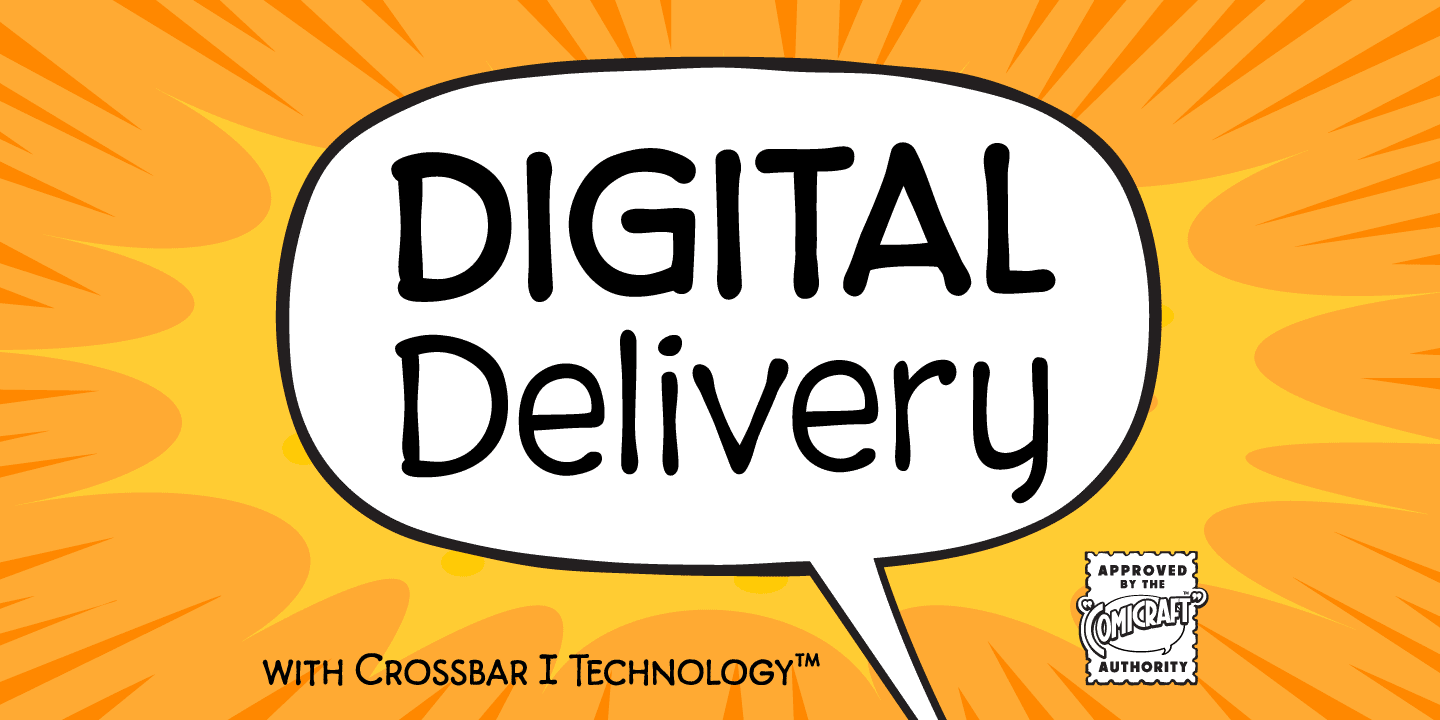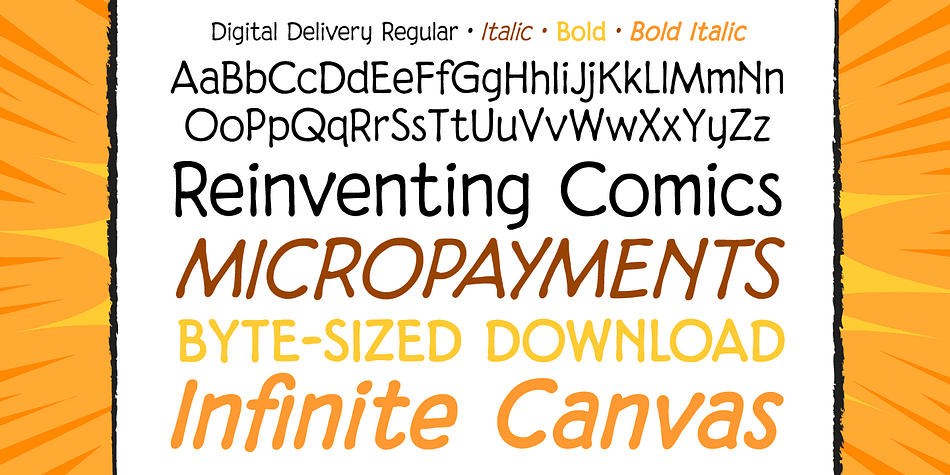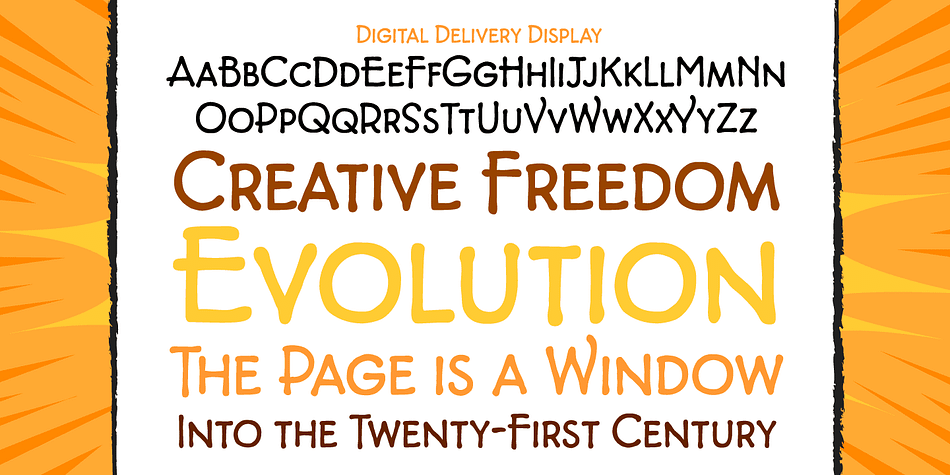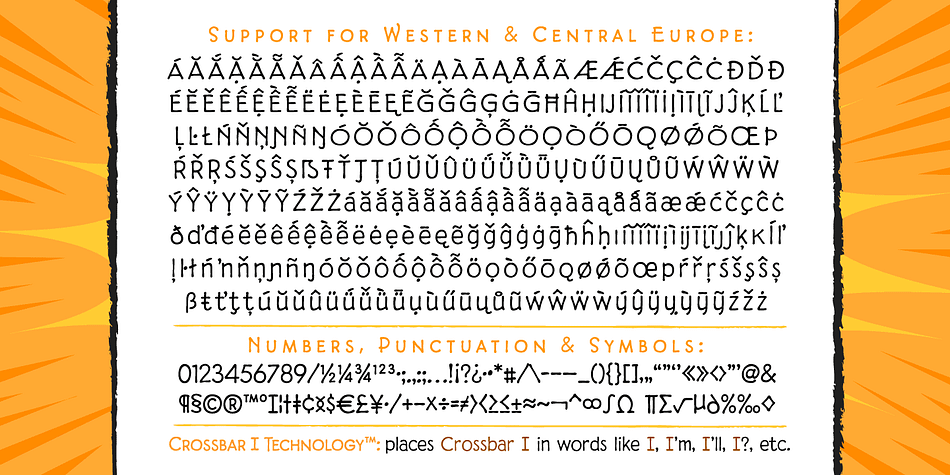
Designed by John Roshell, Digital Delivery is a multiple classification font family. This typeface has five styles and was published by Comicraft.
No, we’re not referring to the strange phenomenon of babies who are born pinkies first, and we’re not talking about downloading oven-fresh loaves of bread byte by byte! If you have any UNDERSTANDING of the name of this font then you’re in good shape, because we won’t be REINVENTING it any time soon. From Scott McCloud’s mouth to your mouse, we very proudly present the Official font of REINVENTING COMICS.